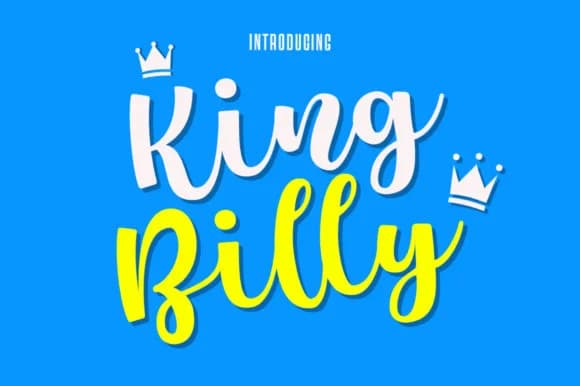
King Billy Font by Epiclinez is a lively handwritten script with genuine regal flair. The crowned letterforms bring energy and motion to every word, making it far easier to inject warmth and individuality without resorting to overstyled or frustratingly hard-to-read alternatives. This script excels in birthday party invitations and celebratory event signage, boutique gift packaging labels, wedding menu cards, greeting card designs, hand-lettered invitations, and anywhere else you want typography that carries emotional weight and sets a tone of authentic festivity.
The handwriting deliberately avoids stiffness or excessive formality, which opens up surprising creative possibilities for designers and makers. You'll find it genuinely useful for custom scrapbooking layouts, DIY personalized stationery projects, children's room wall art, hand-lettered craft labels, vintage-inspired posters, and anywhere you need letterforms that feel human-made rather than algorithmic or mass-produced. The bouncy baseline, visible stroke variations, and hand-drawn quality deliver authentic charm while maintaining excellent legibility even at smaller print sizes or on digital displays.
King Billy Font is a script font that shines as a display or heading face. Pair it with a clean sans-serif or serif font for body text β the contrast creates a clear hierarchy while the two styles stay balanced and easy to read.
King Billy Font
by Epiclinez